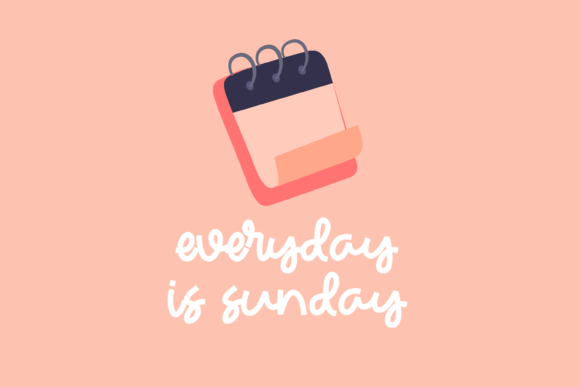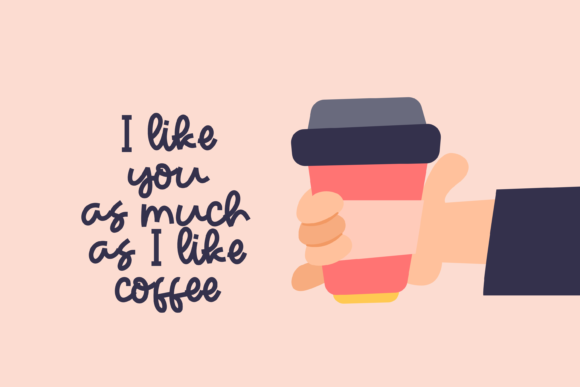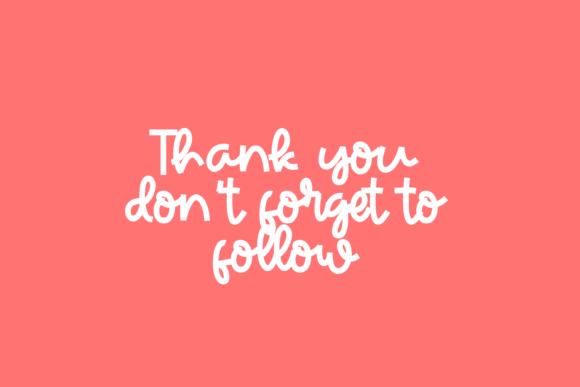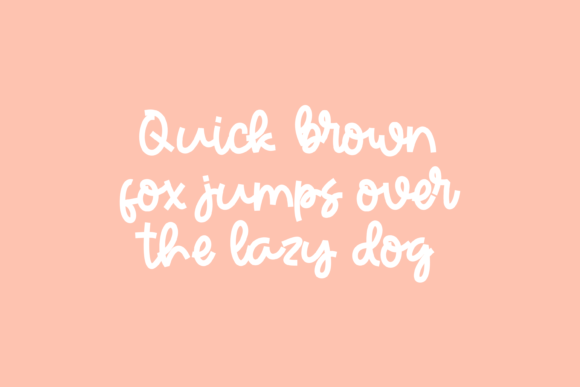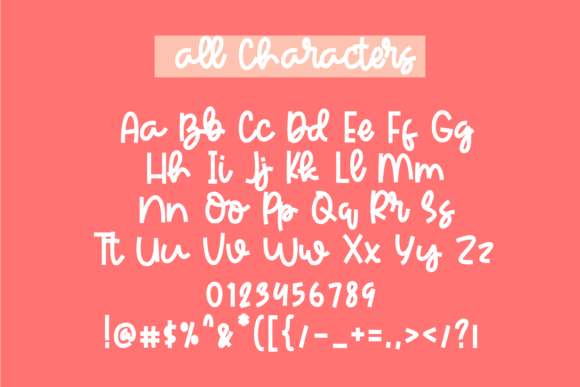
Introduction to Peach Mezmerise Font
Peach Mezmerise is a delicate and playful handwritten script.
Its graceful nature makes this font perfectly suitable for a variety of creative projects The sky is the limit.
Key Features of Peach Mezmerise Font